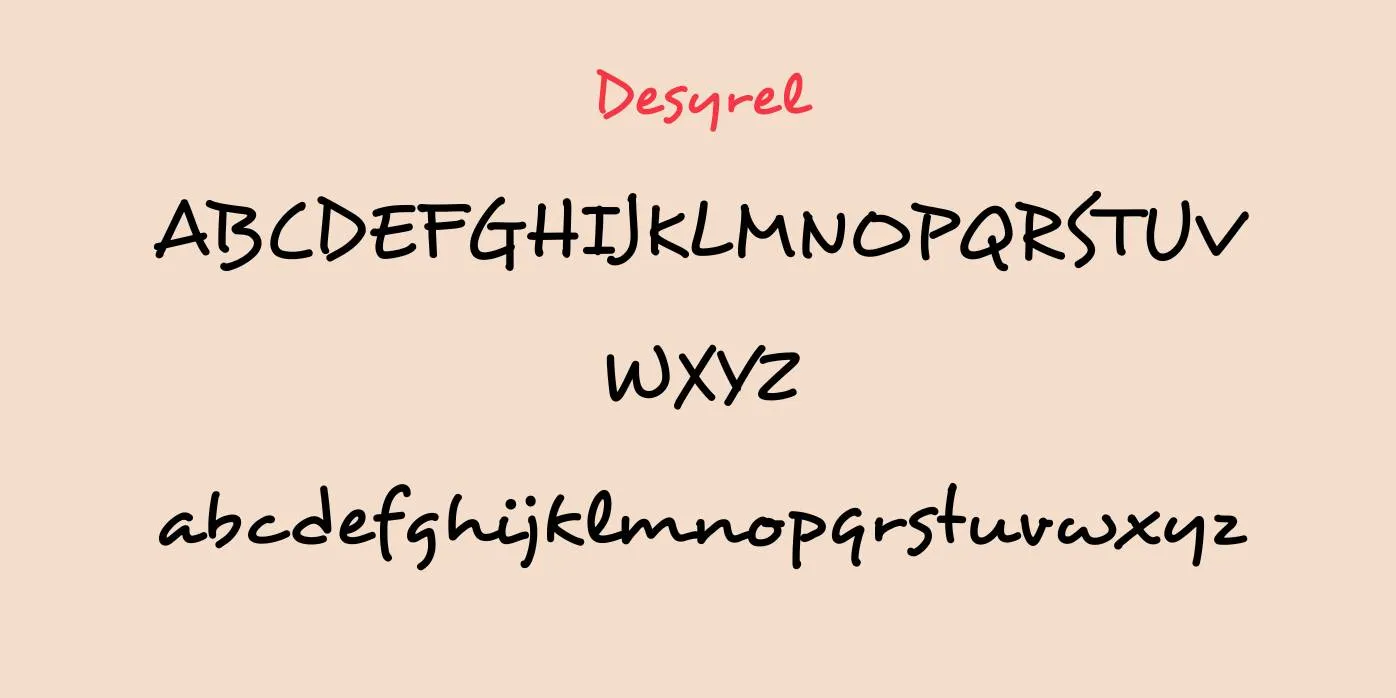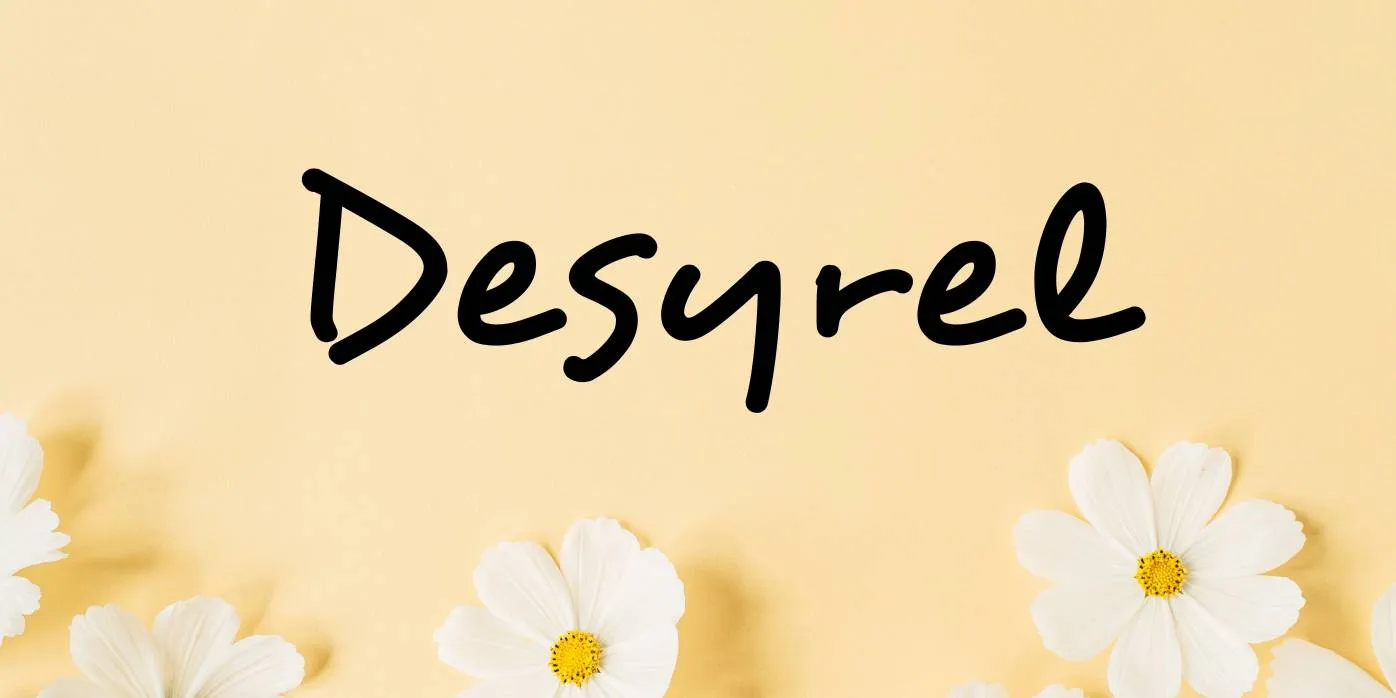
Desyrel Font
Here we discuss detailed information about Desyrel Font. This stunning typeface was designed by Dana Rice & Apostrophic Laboratories. It is a very famous texture all around the world, and it gained so much popularity in a very short time. This gorgeous font supports TTF (True Type Font) and OTF (Open Type Font).
This font includes 448 glyphs and 1000 units per Em. It can be paired with other fonts to give a more attractive look to your projects like simple script font. You may also pair many other related fonts of this typeface in your projects.  The weight of the font is Medium (standard) and its width is also medium (normal). The patterned nature of this font is regular.  An online generator tool also supports this font to make stylish font online without downloading the font.  Usage It is a very stylish font with high readability.
You can make so many projects using this font. It has characters, numbers, capital letters, small letters, punctuations, special characters, and symbols. It can be used for making posters for movies. You can make amazing TV shows and Titles using this font.
It is also a good choice for making headlines and in body text. It can be read easily even in small-size text. This font is considered a good font for making different types of logos. You can edit projects using this font in Microsoft Word and other Illustrators.
FAQs! Is Desyrel a good font for the website? Yes, it can be used for making many web designs it can be read easily and you can make clear and fantastic website designs. Is Desyrel good for body text?
This is a good font and can be used for body text but it can also be used for making so many other projects. What are some of the most popular uses for Desyrel Font? It can be used for making many projects like printing business cards, Banners, Brochures, and Posters. Is Desyrel an unprofessional font?
It is a professional font and can be used for many different projects. It is a very stylish handwritten font.